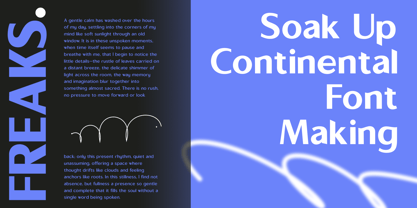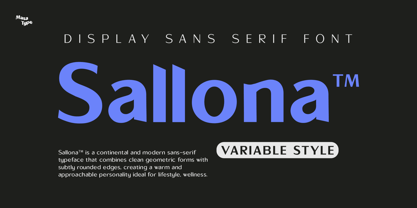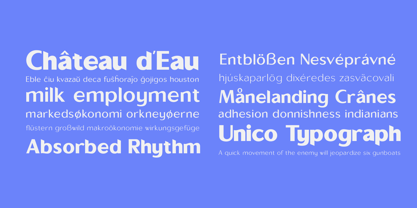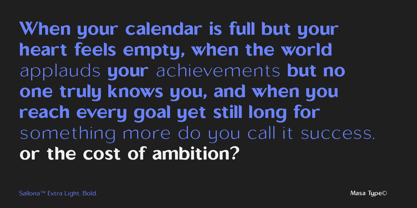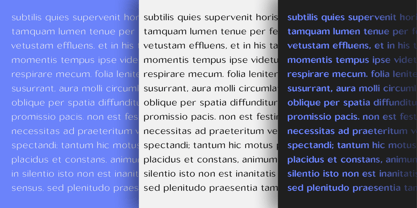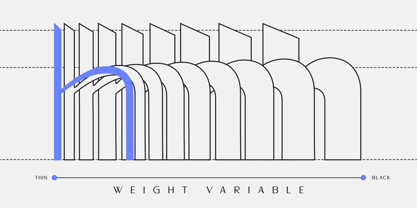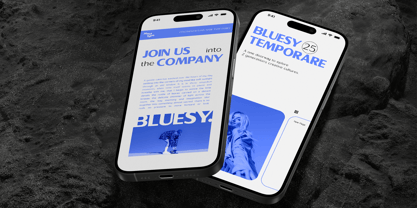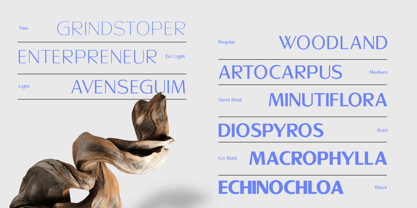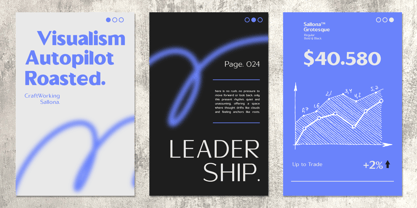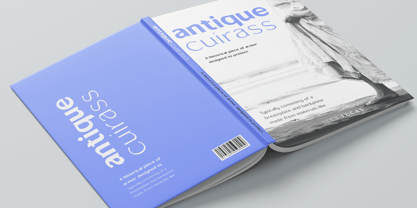
Sallona Pro Variable
Sallona™ is a modern and contemporary sans-serif font that combines clean geometric shapes with slightly rounded edges. This character creates a warm and approachable personality, perfect for lifestyle themes, health, and design applications that require a professional yet friendly feel.
This font has a variety of styles, making it flexible in typographic applications—from a bold look for headlines to a lighter, more elegant style for supporting text.
Some of its distinctive features:
Clean, modern geometric letterforms
Slightly rounded edges for a soft feel
Ideal for branding, magazine design, packaging, and promotional materials
Professional look without losing its familiar feel